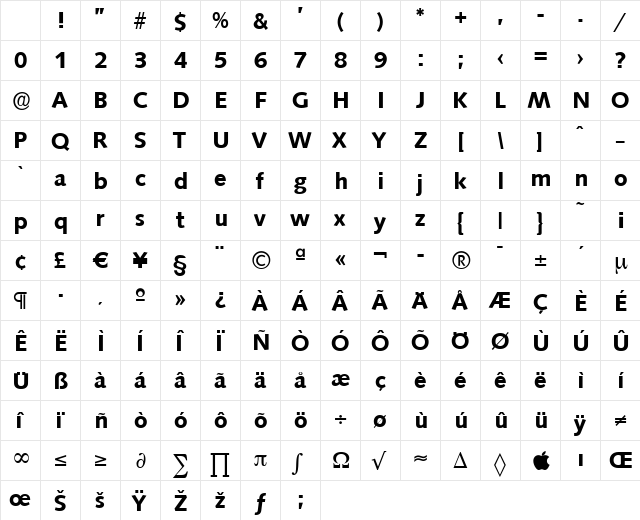
Complete RogerBecker Bold glyph index. Displaying only characters natively supported by RogerBecker Bold font.
RogerBecker is a composed and adaptable typeface that performs quietly and consistently across a wide range of design contexts. Its bold stroke weight gives it real presence on the page.